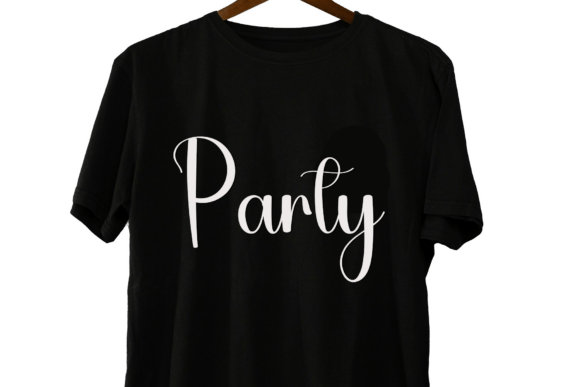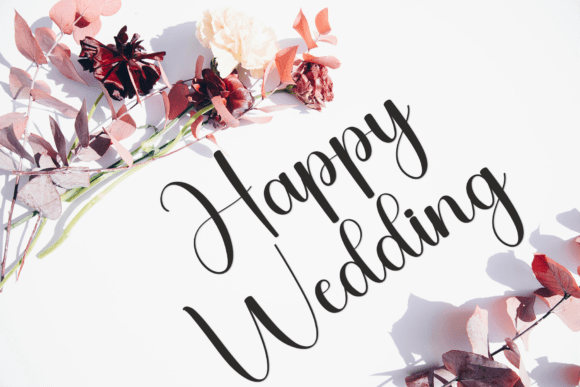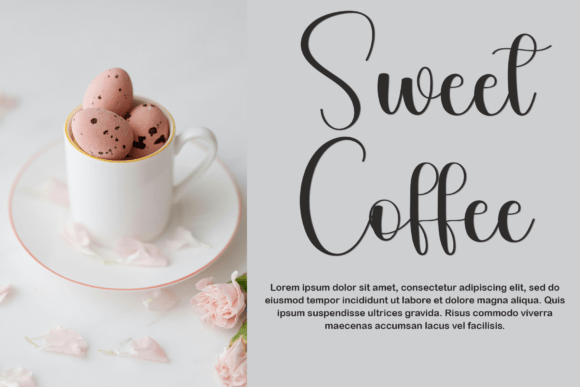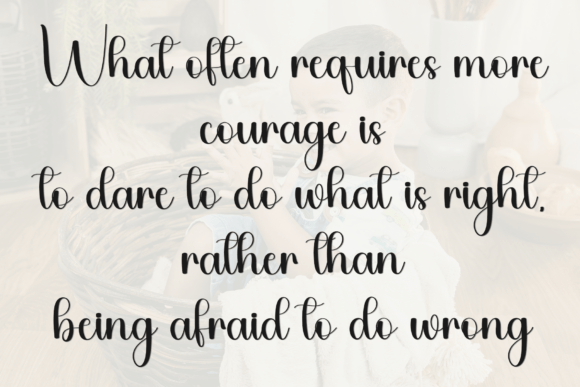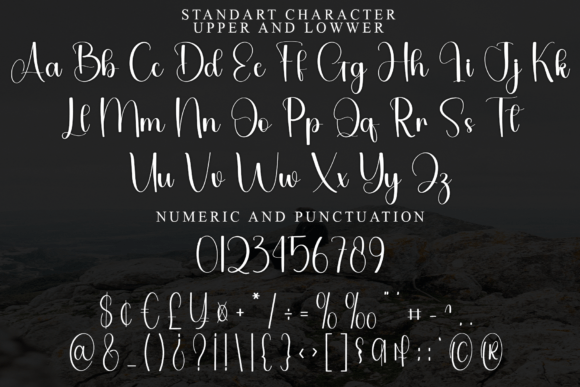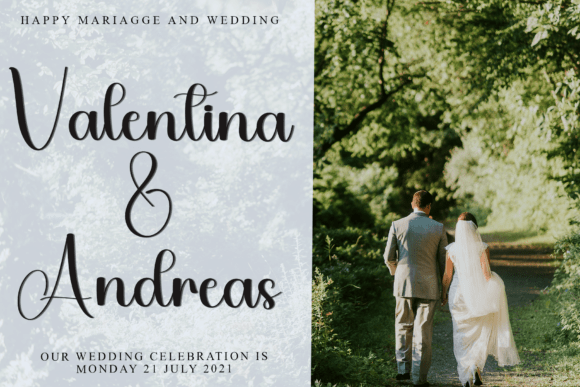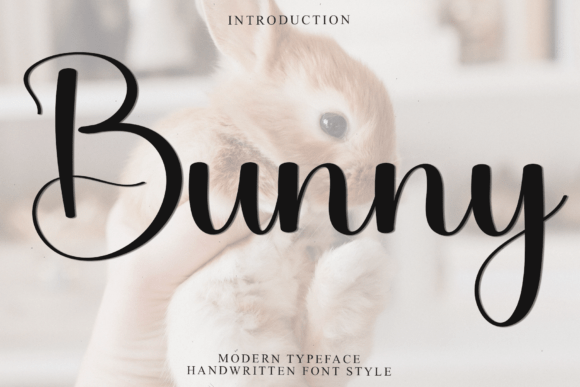
The Bunny Font: A Game-Changer for Designers and Crafters
I still remember the frustration of working on a design project, hours spent searching for the perfect font, only to end up with something that just didn’t feel right. My client wanted a font that was soft, yet eye-catching; unique, yet versatile. It was then that I stumbled upon the Bunny font, and let me tell you, it was love at first sight! 💕
What I Love About Bunny Font
- ✨ Unique and eye-catching design: The Bunny font has a distinctive touch that sets it apart from other fonts.
- ✅ Versatile and meaningful: Its special character makes it perfect for a wide range of design projects, crafts, and creative works.
- 🌈 Variety of characters: The font comes with a range of characters, making it ideal for projects that require a bit of flair.
While I adore the Bunny font, there are a few things to keep in mind: 🤔
- ⚠️ Limited use in formal designs: The font’s playful nature may not make it suitable for very formal or professional projects.
- ⚠️ May require adjustment for large blocks of text: The font’s unique design may not be ideal for large blocks of text, and may require adjustments to ensure readability.
The Backstory Behind Bunny Font
The Bunny font was designed by a talented typographer who wanted to create a font that was both playful and elegant. Inspired by the whimsy of nature, the designer crafted a font that was both unique and versatile. The result is a font that’s perfect for designers, crafters, and creative hobbyists who want to add a touch of personality to their projects.